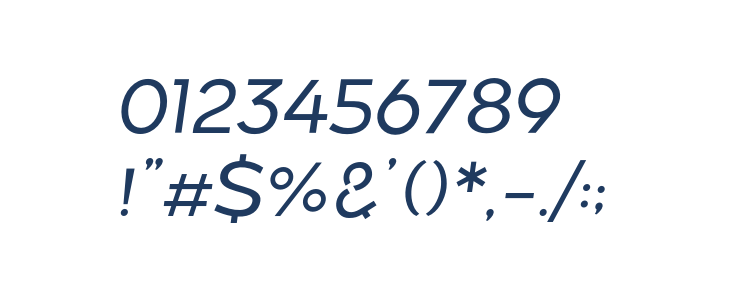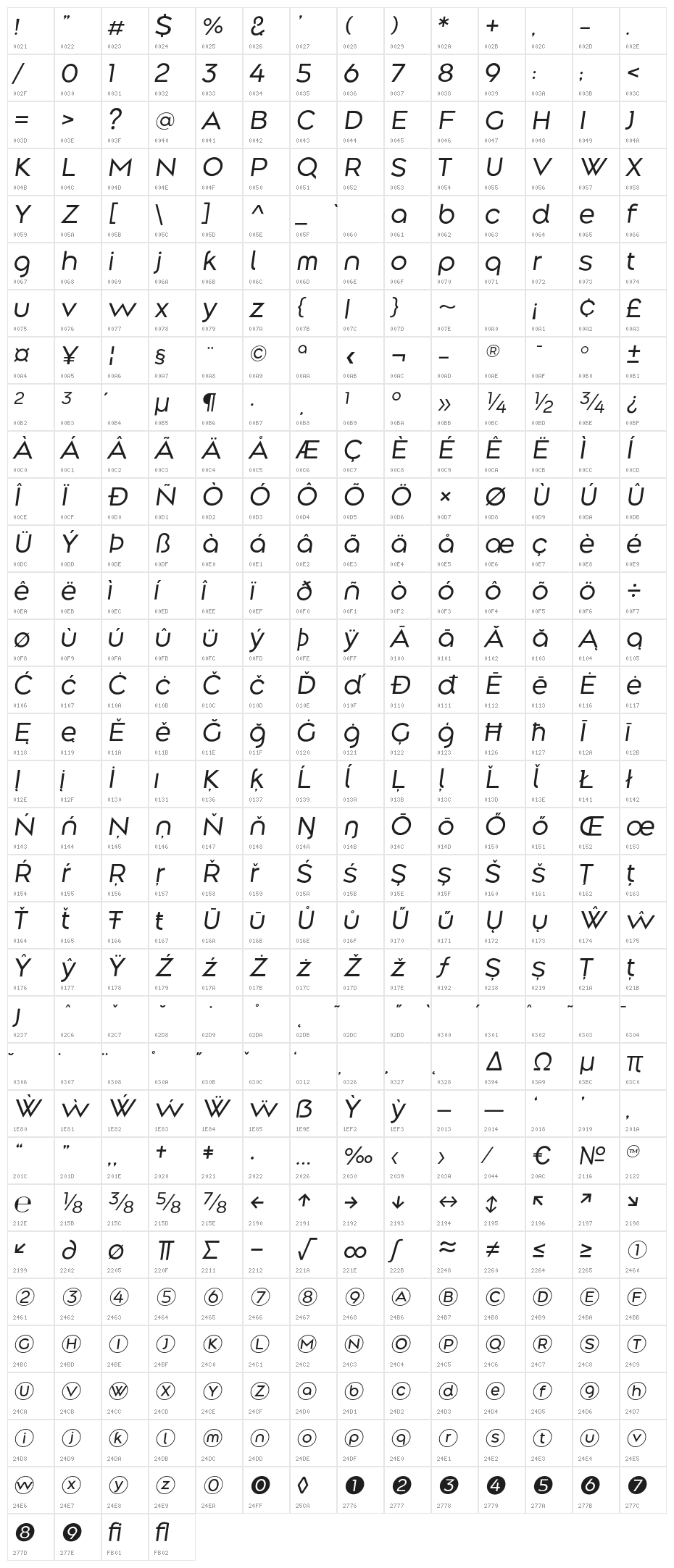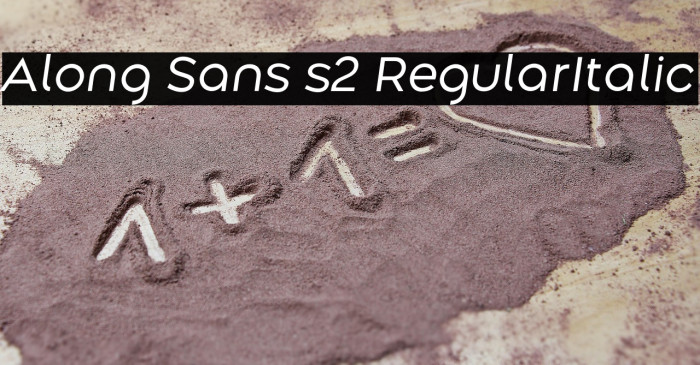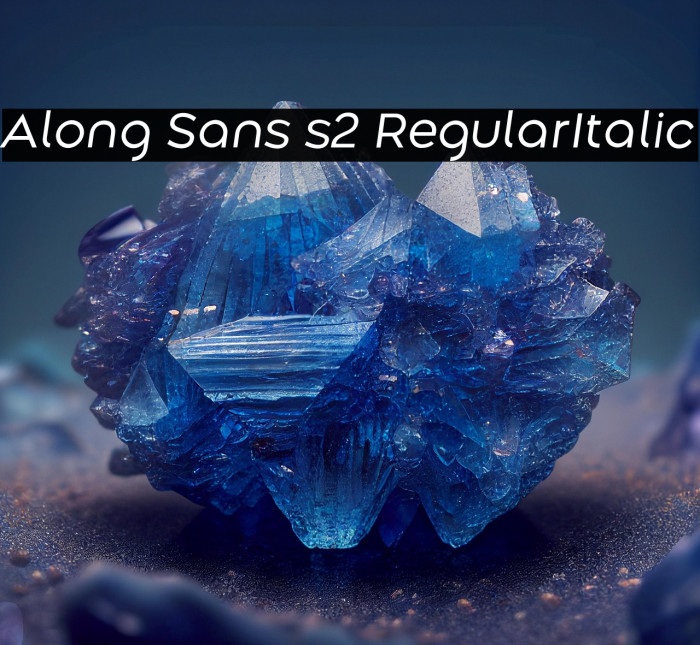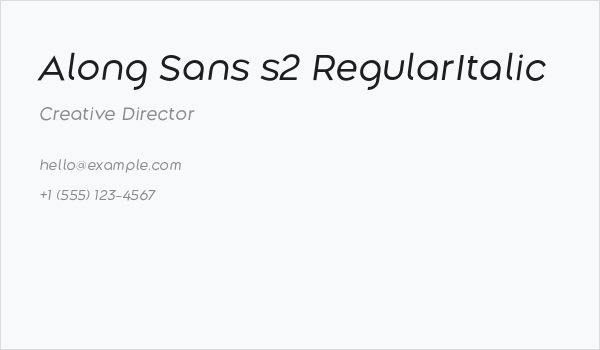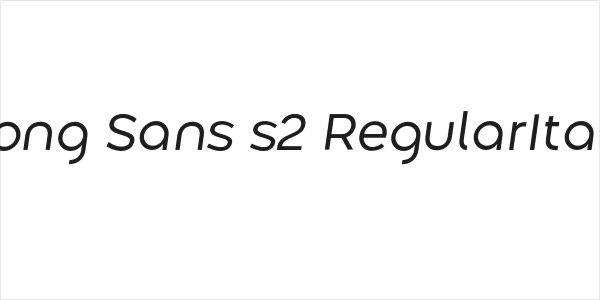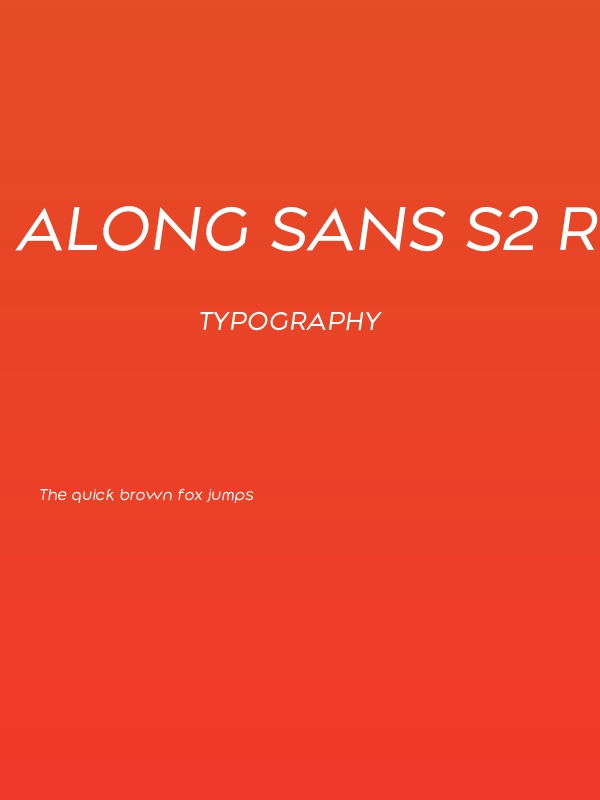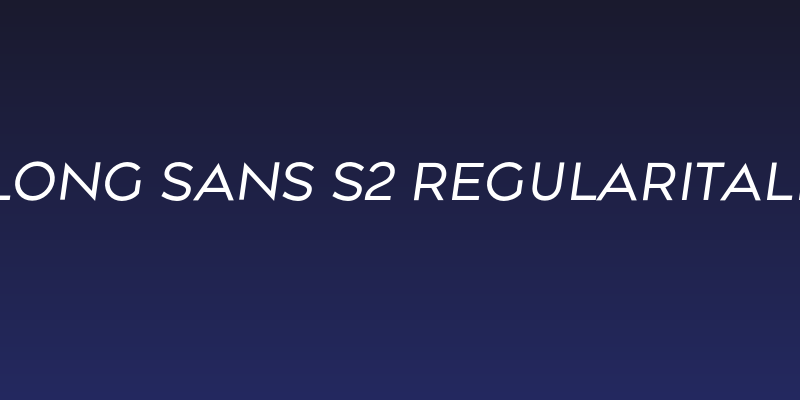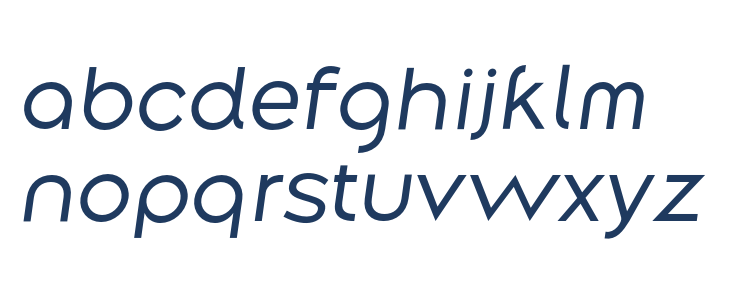
Along Sans s2 RegularItalic Font
Along Sans s2 RegularItalic Description
This typeface features a clean and modern sans-serif design with a subtle italic slant, giving it a dynamic and contemporary feel. The characters are well-proportioned, with a slight curvature that adds a touch of elegance. The uppercase letters are bold and assertive, while the lowercase letters maintain a friendly and approachable appearance. The numerals are clear and distinct, making them easy to read. Special characters are thoughtfully designed to maintain consistency with the overall style. The font's smooth lines and balanced spacing make it versatile for various design applications.